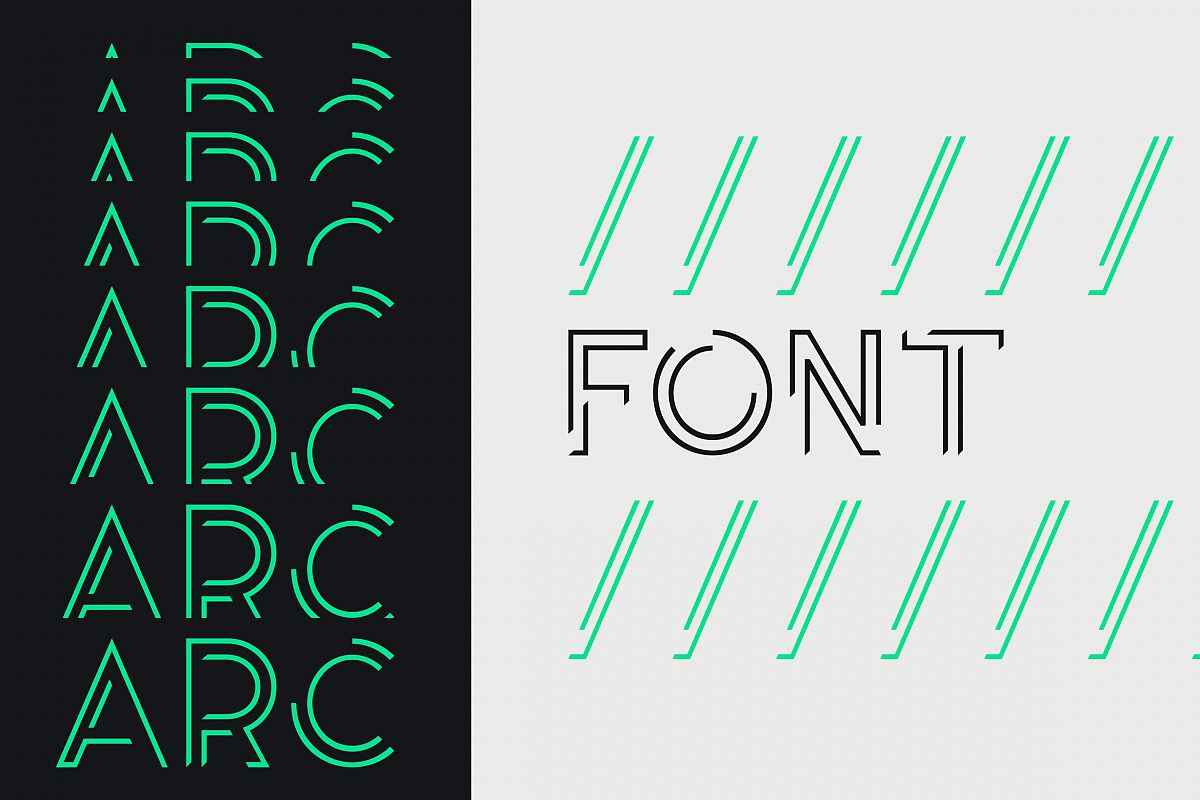
arc
Made for advertising, logo, branding, etc. I advice you to use this fonts in large size (for posters, logos, etc.).
Include latin uppercase alphabet, numerals, and other glyphs.